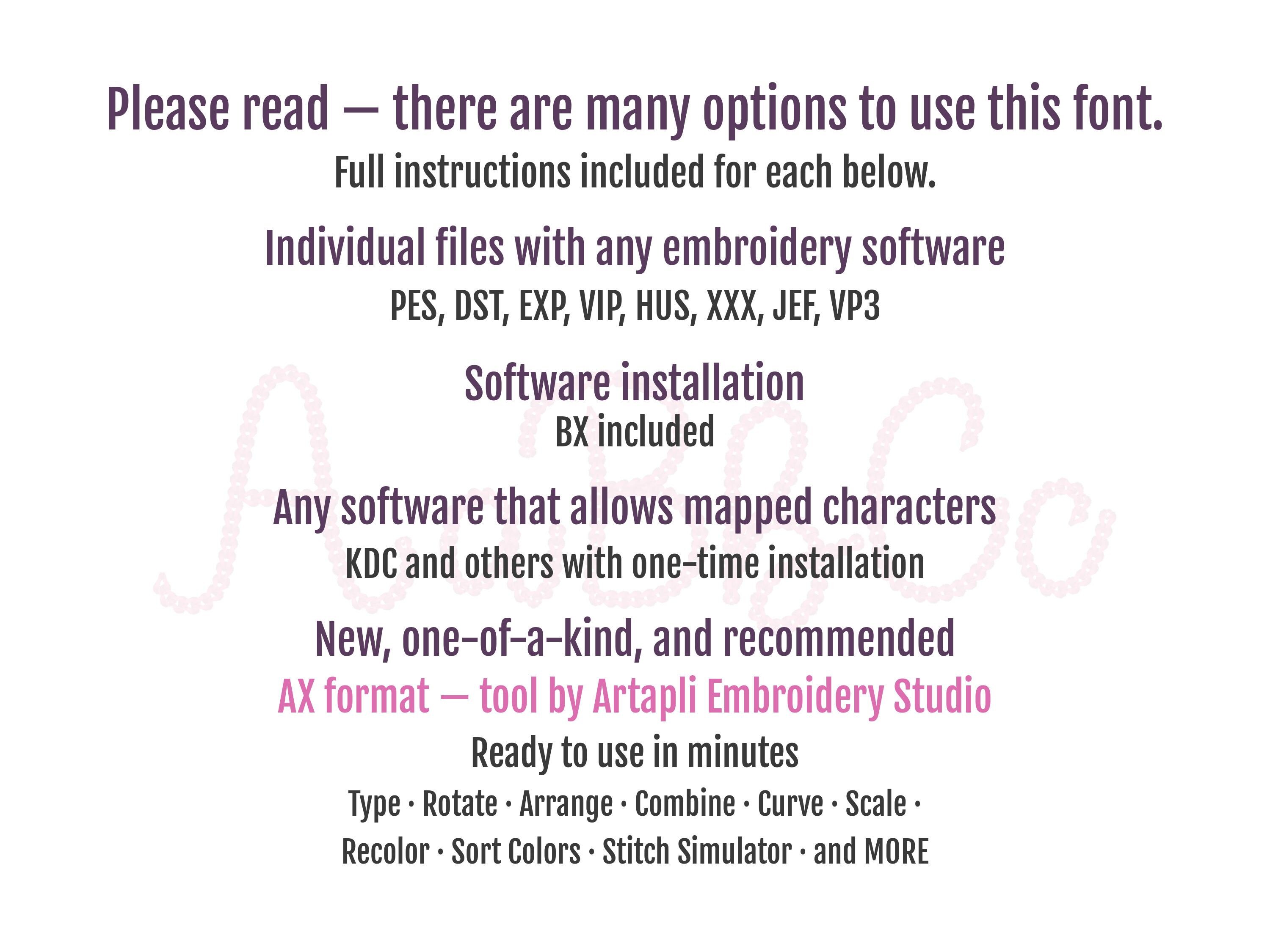
Bold smaller Dense Chain stitch FONT Bold Chain machine embroidery designs alphabet letters knit sweater handmade effect chain name, BX included
Entire alphabet uppercase and lowercase letters Aa-Zz, and numbers 0-9.